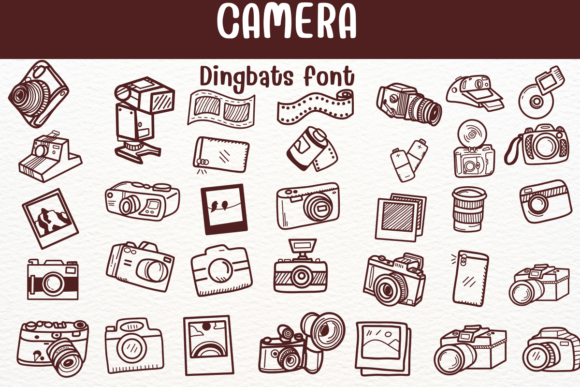
The Perfect Shot: Discovering the Camera Font
I’ll never forget the time I was working on a photography logo project for a client who was a passionate film enthusiast. I had spent hours browsing through font libraries, but nothing seemed quite right. That was until I stumbled upon the Camera Font – a fun and detailed dingbats font that instantly captured the essence of photography. In this article, I’ll share my experience with this amazing font, its features, and how to make the most of it in your designs.
• ✨ The Camera Font is incredibly detailed, with a wide range of camera illustrations, from vintage film gear to modern smartphones and accessories.
• ✅ It’s perfect for photography logos, scrapbooking, memory books, and creative branding for camera lovers.
• 🎨 The font is highly versatile and can be used in various design projects, from digital to print.
While the Camera Font is amazing, there are a few things to keep in mind:
• ⚠️ Some of the illustrations may be quite detailed, which can make them difficult to read at small sizes.
• 🤔 The font may not be suitable for body text, as it’s primarily designed for headings and titles.
The Designer Inspiration Behind the Camera Font
The Camera Font was designed with photography enthusiasts in mind. The designer, a passionate photographer themselves, wanted to create a font that would capture the essence of photography and allow designers to easily incorporate camera illustrations into their work. The result is a unique and versatile font that’s perfect for a wide range of design projects.
Font Name Camera Font
Author Sontaya
Q: What type of designs is the Camera Font best suited for?
A: The Camera Font is perfect for photography logos, scrapbooking, memory books, and creative branding for camera lovers.
Q: Is the Camera Font available in different styles or weights?
A: The Camera Font is a dingbats font, which means it comes with a range of illustrations and glyphs. However, it may not have multiple styles or weights like traditional fonts.